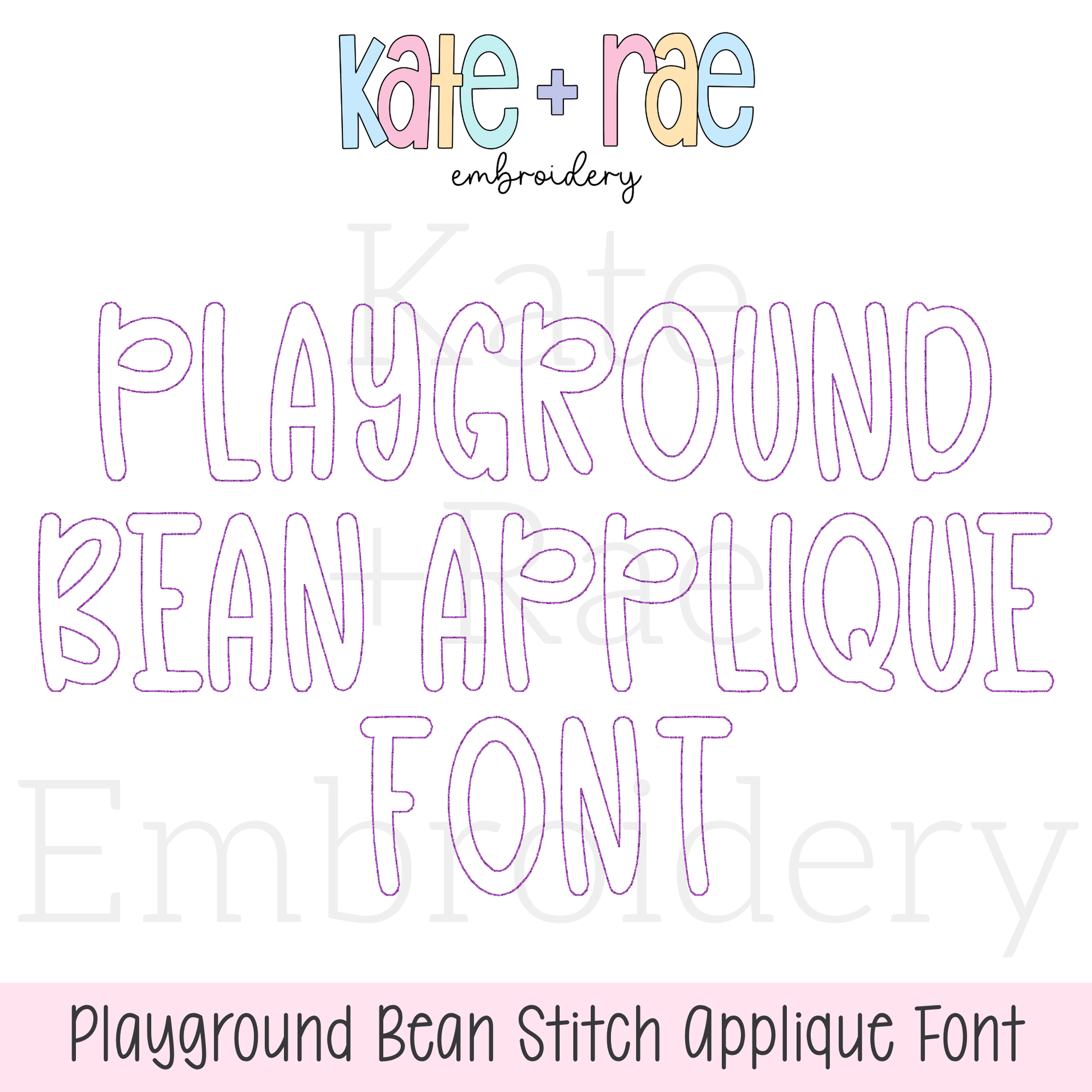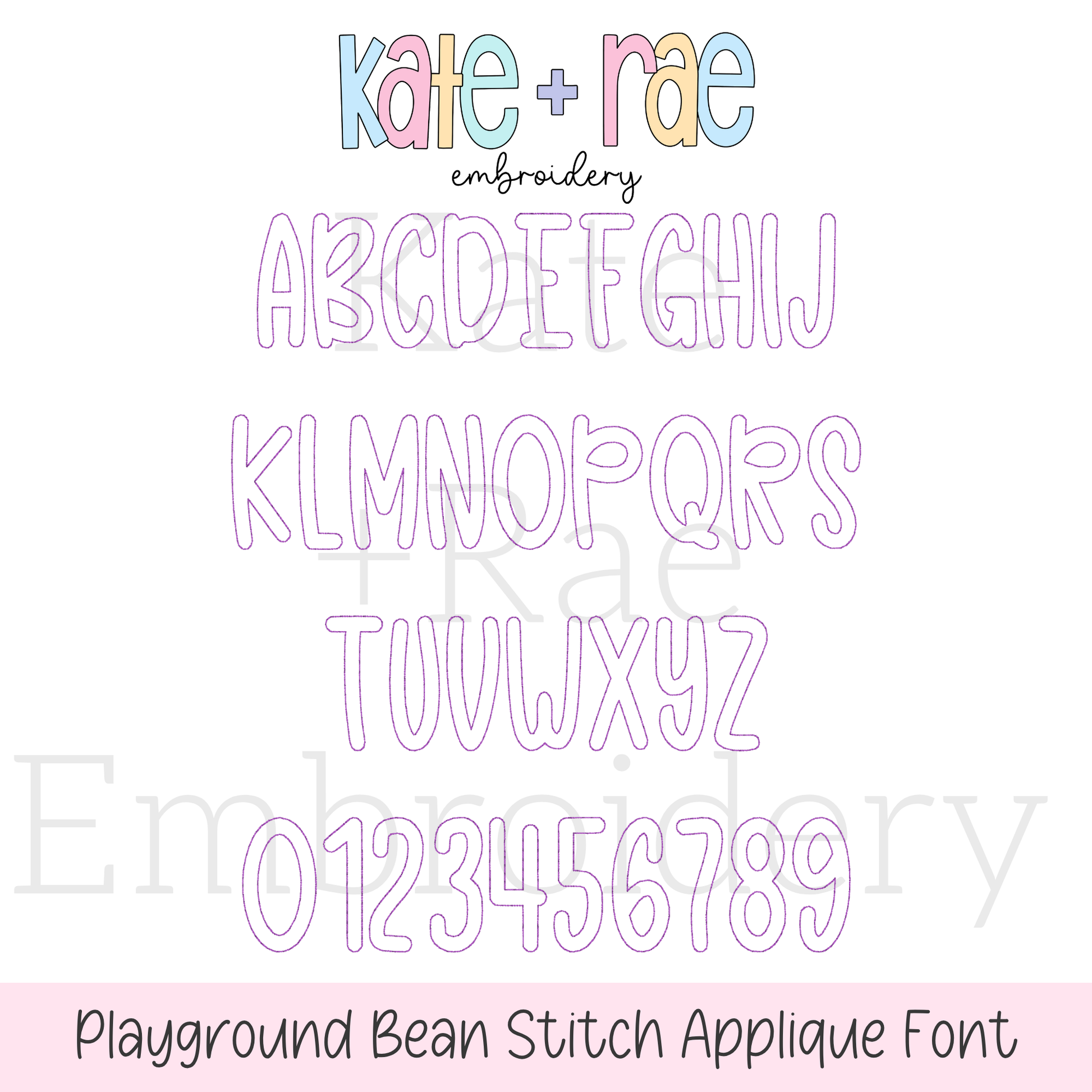
Playground Bean Stitch Applique Embroidery Font
Meet Playground, a playful bean stitch applique font! Personalize names on back-to-school shirts and kids' outfits.